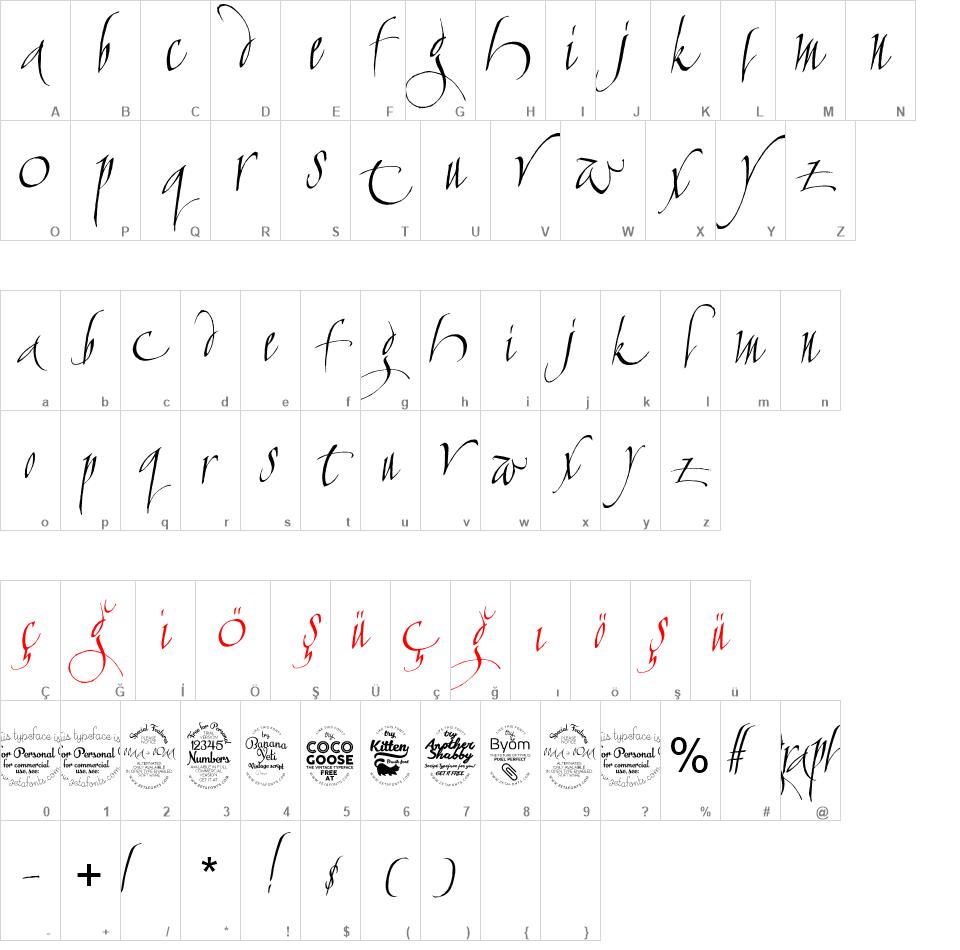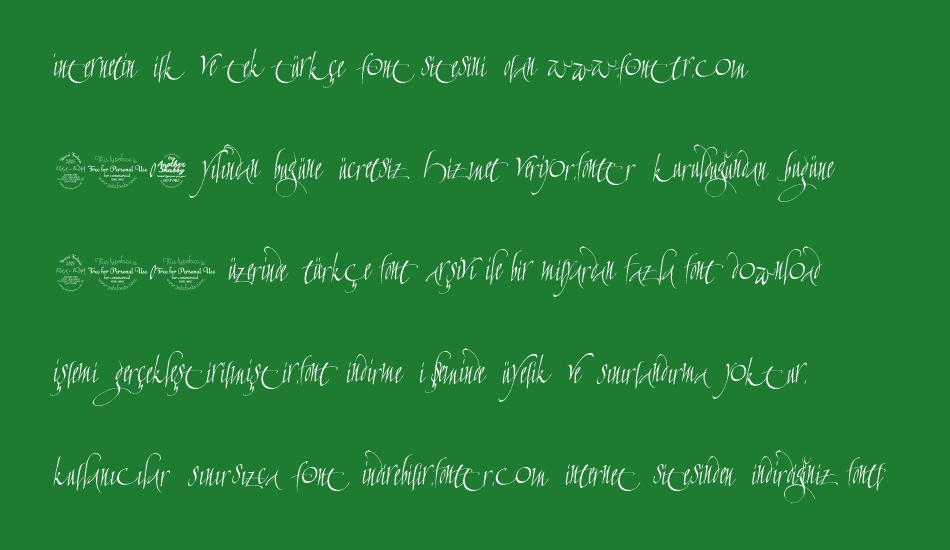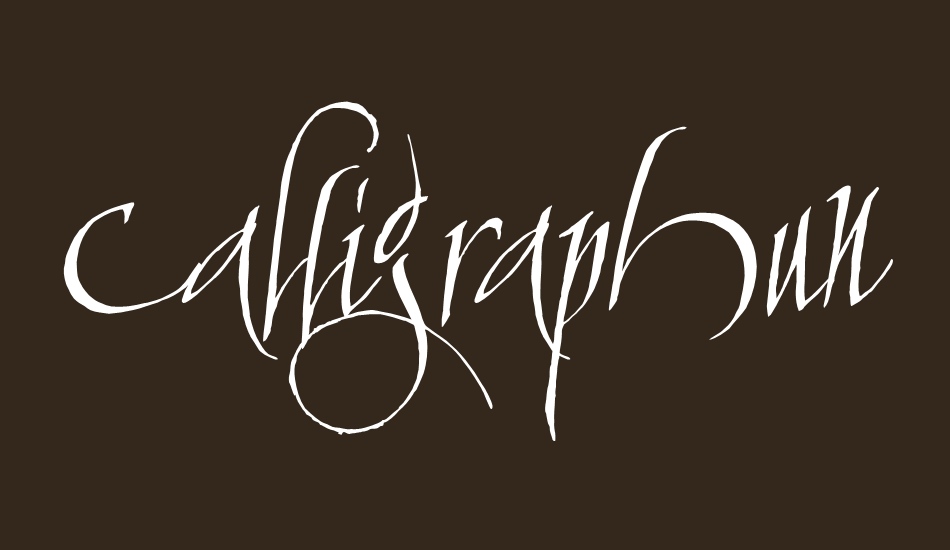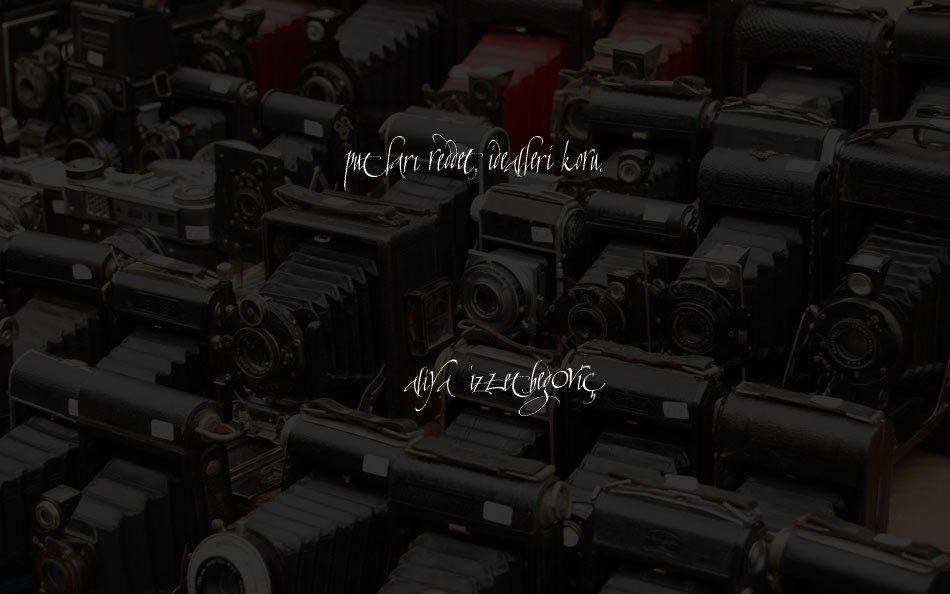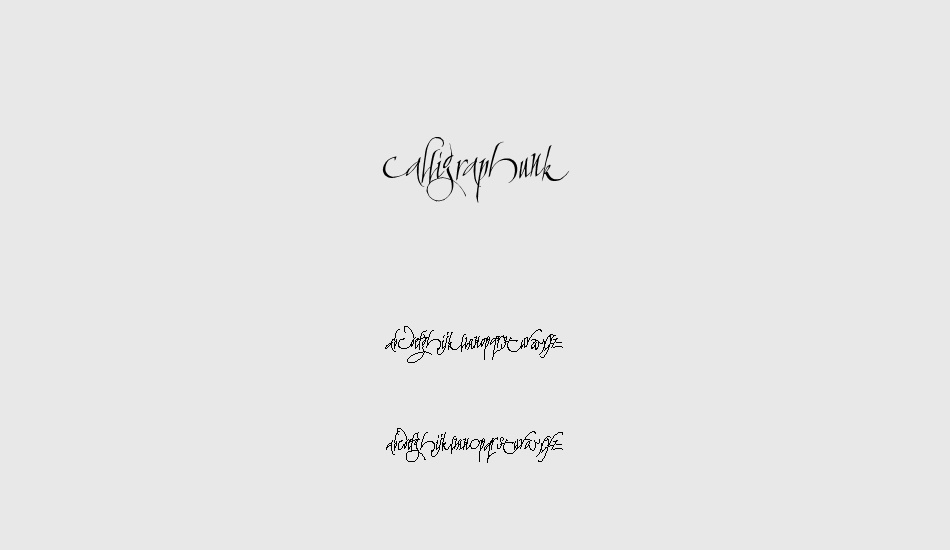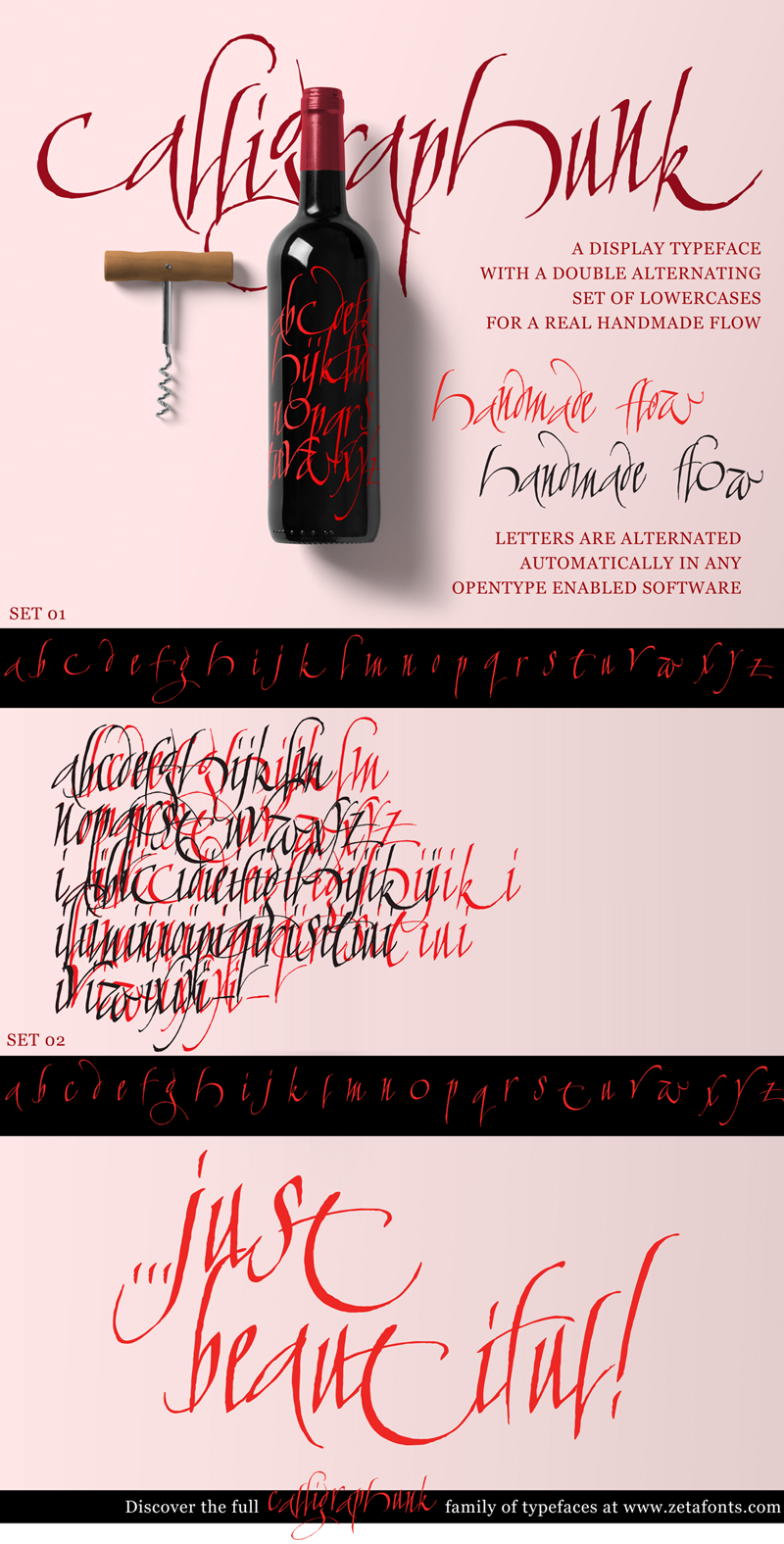
Calligraphunk font
cAlLiGrApHuNk font
Calligraphunk is an experimental typeface that mimicks polyrithmic calligraphy, by alternating two sets of lowercase letters to obtain a handwritten like typeface.
Calligraphunk powerful flow is perfect for logo design and display use; the family comprises a cleaner mono width font for longer text blocks.
Calligraphunk covers over 40 languages that use the Latin alphabet, with a full range of accents and diacritics.